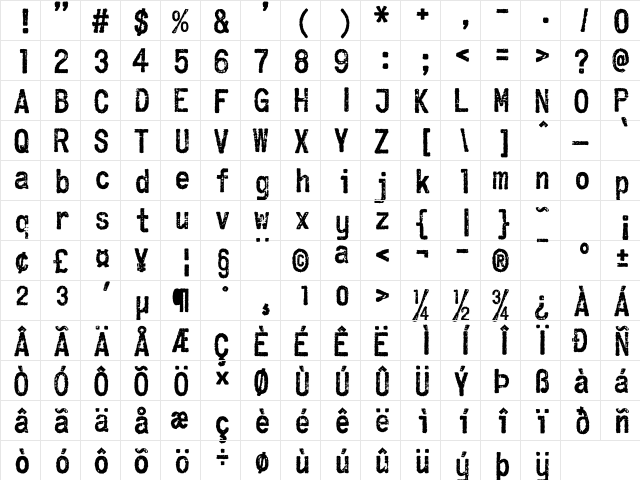
Complete zai Wolfsschanze Typewriter Regular glyph index. Displaying only characters natively supported by zai Wolfsschanze Typewriter Regular font.
zai Wolfsschanze Typewriter uses fixed-width spacing throughout, giving it the structured, systematic character associated with coding environments and technical documentation.
Pro Tip: Use zai Wolfsschanze Typewriter with slightly increased line-height for extended reading - fixed-width spacing can feel dense in longer passages without extra breathing room.